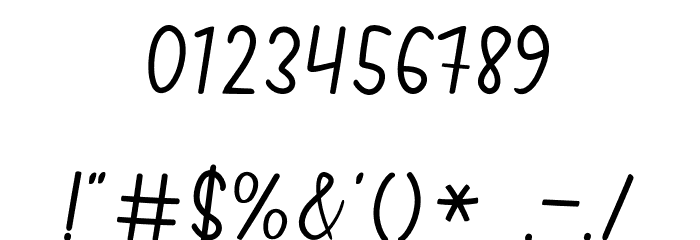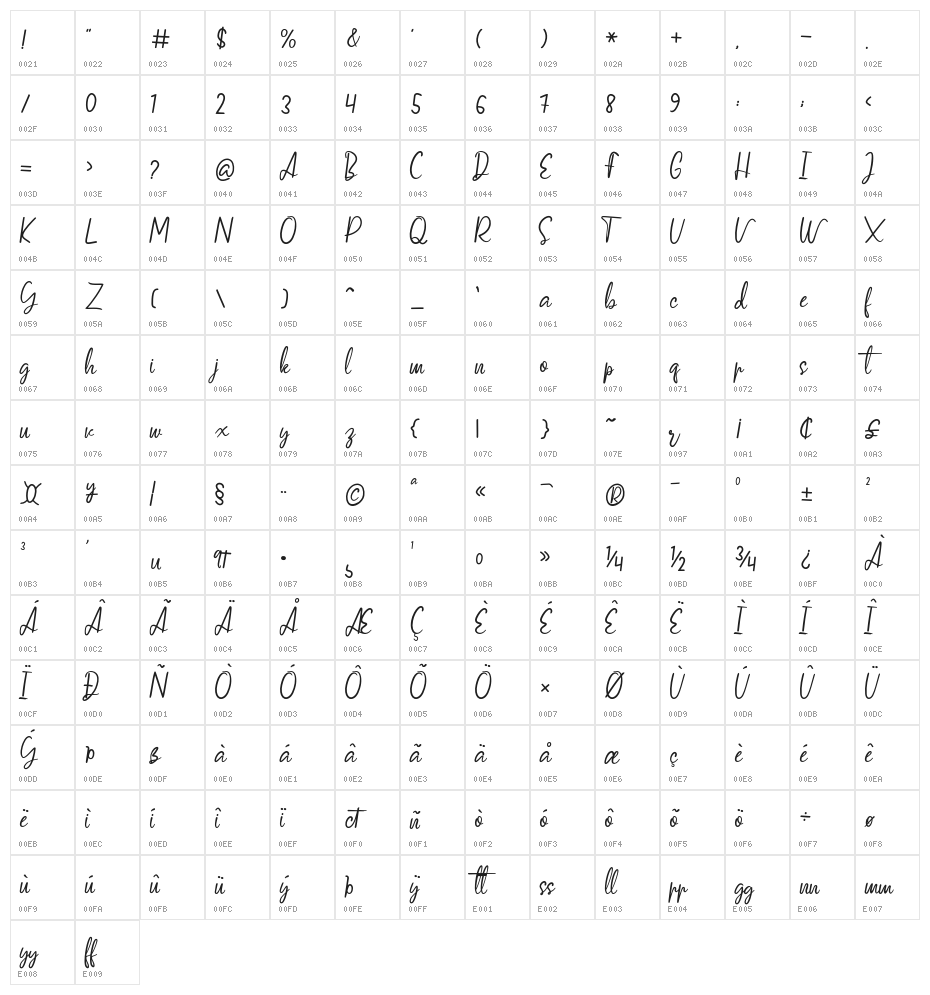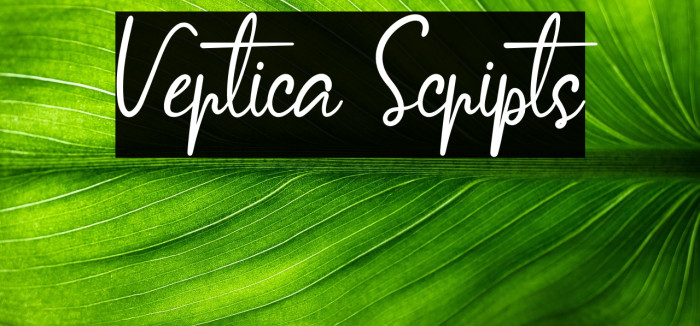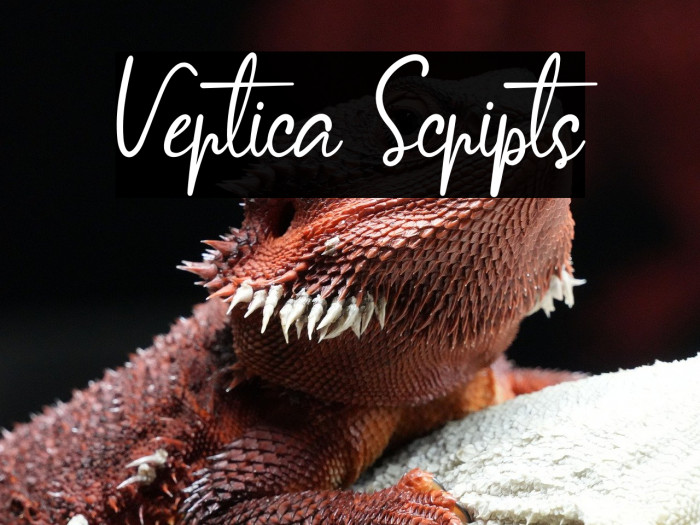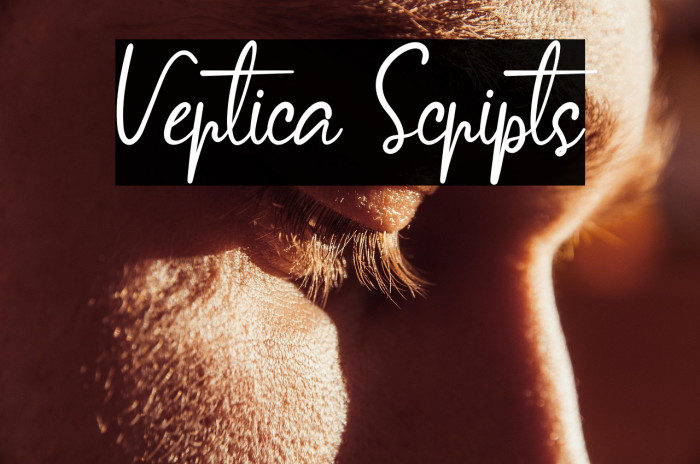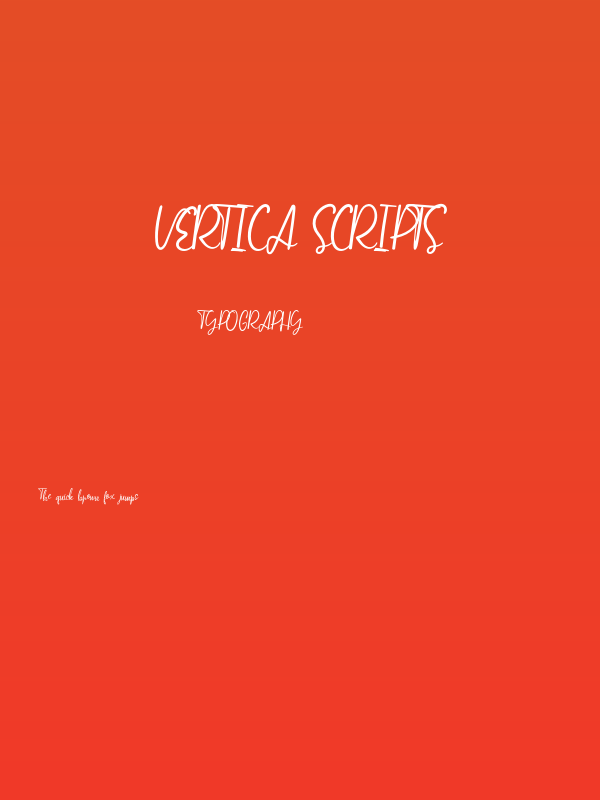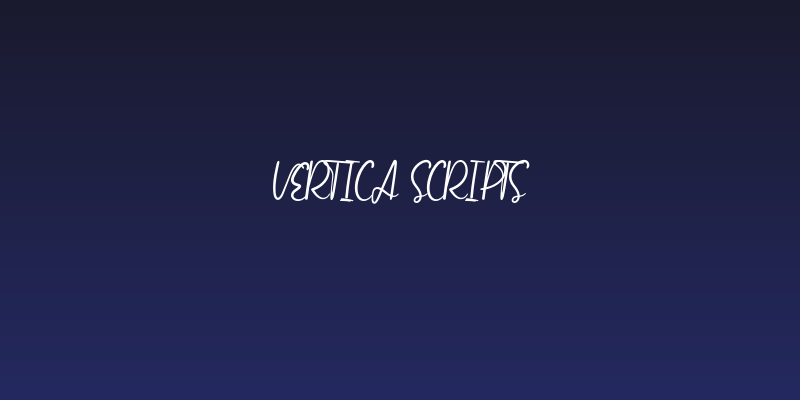
Vertica Scripts Font
Vertica Scripts Description
This font features a lively and dynamic script style, characterized by its fluid and connected letterforms. The uppercase letters exhibit a playful yet elegant design, with varying stroke widths that add a sense of movement and rhythm. The lowercase letters maintain this fluidity, offering a harmonious flow that is both casual and sophisticated. Numbers and special characters are crafted with the same attention to detail, ensuring consistency across all glyphs. The overall appearance is modern and stylish, making it suitable for a variety of creative applications.
| Use Case | Logos, Invitations, Social Media |
| Proposed Projects | Ideal for wedding invitations, greeting cards, branding, and social media graphics. |